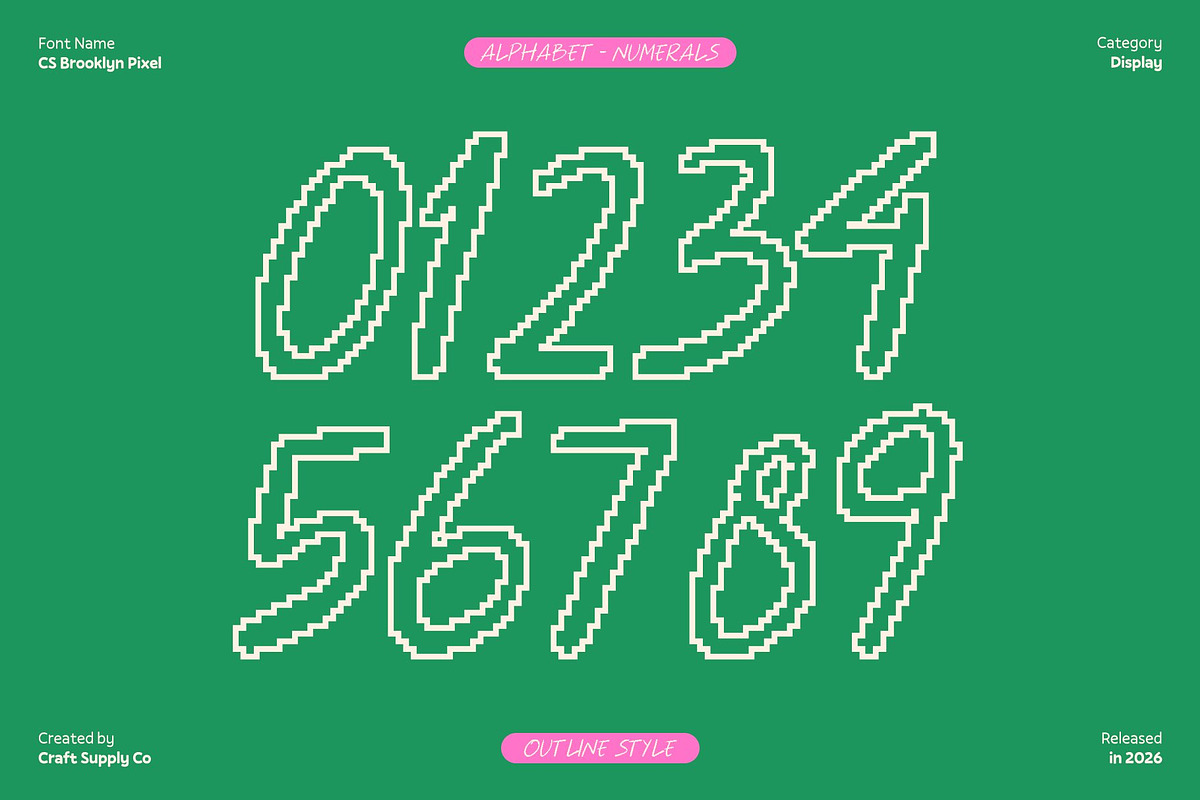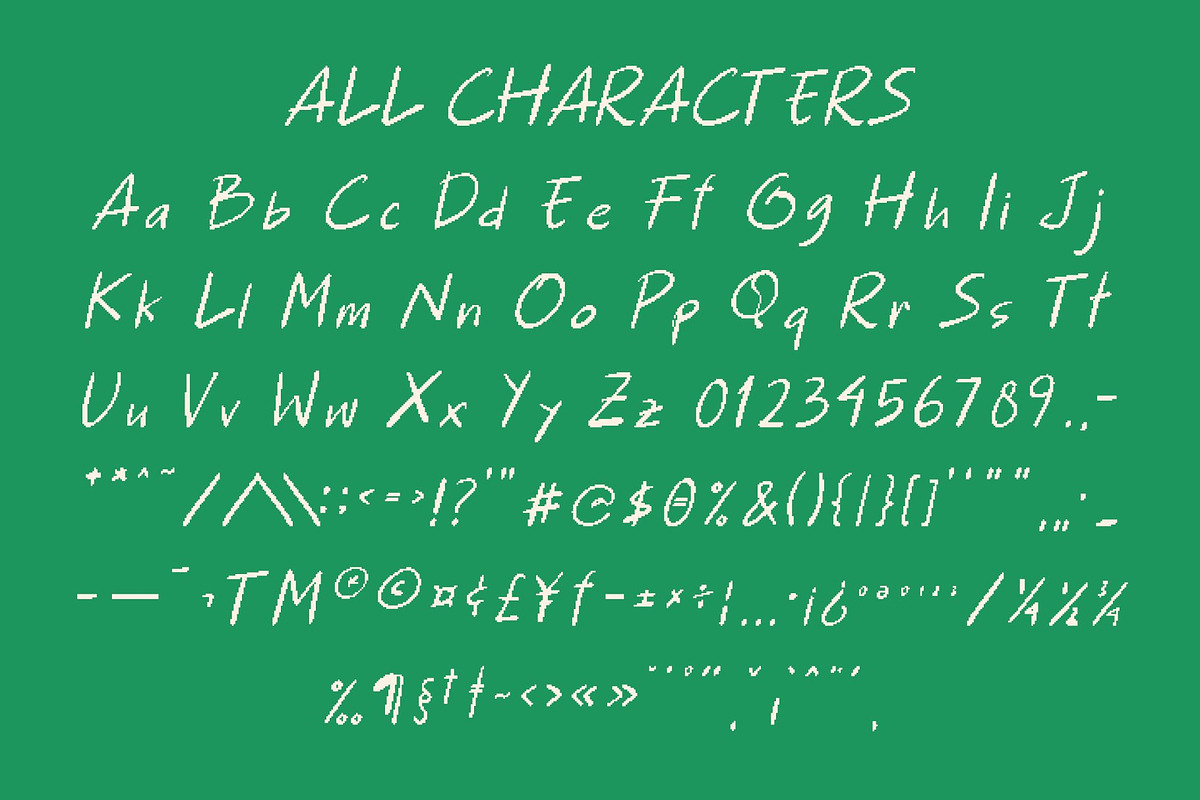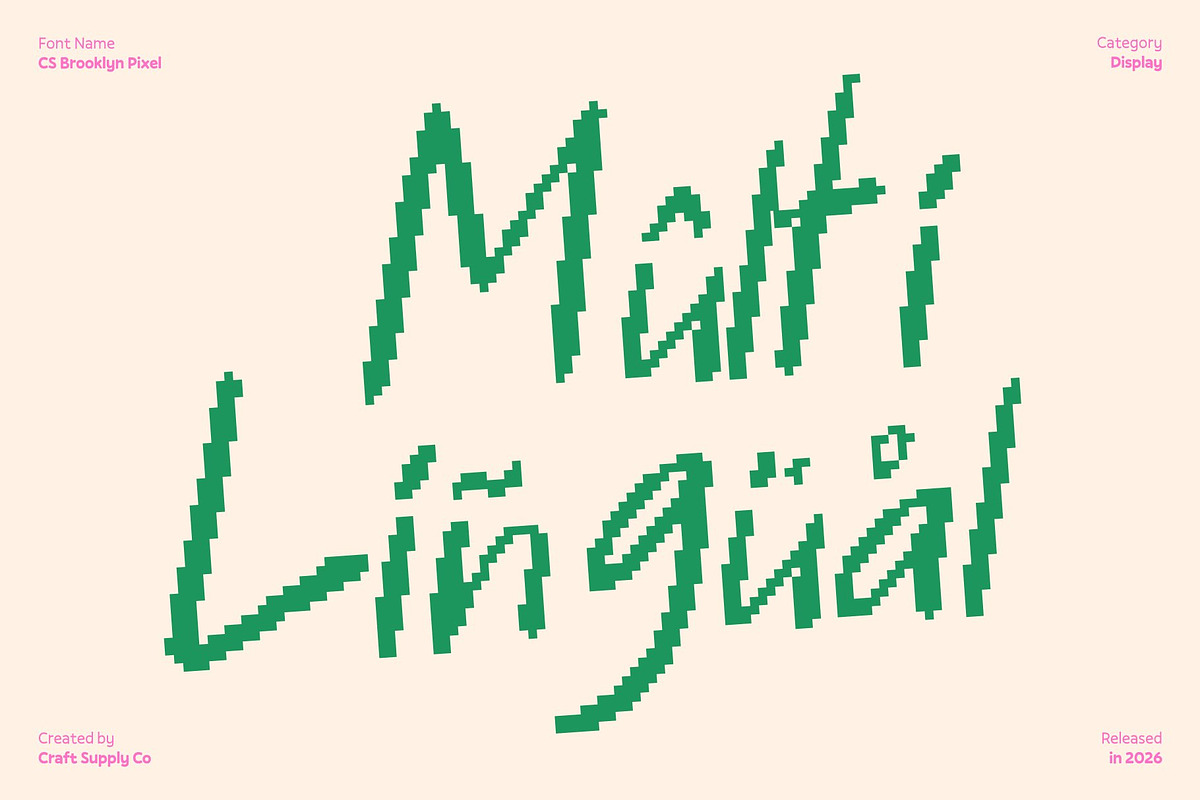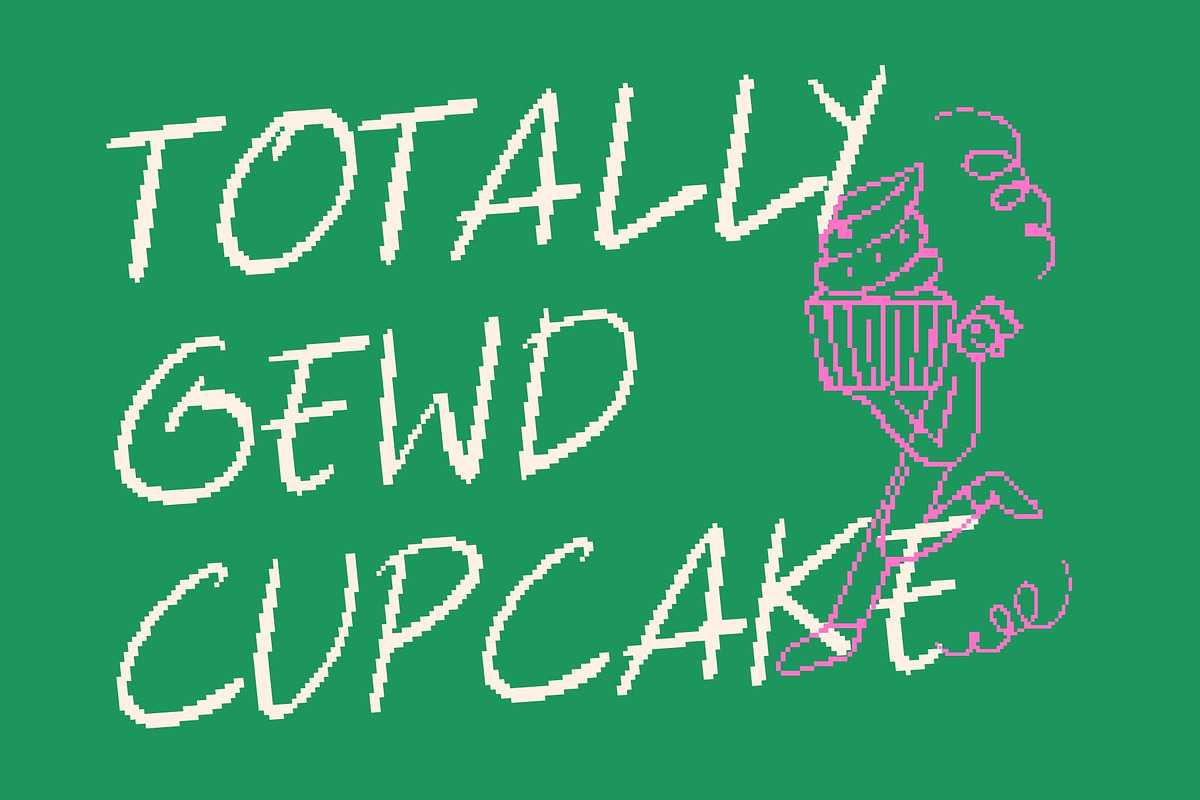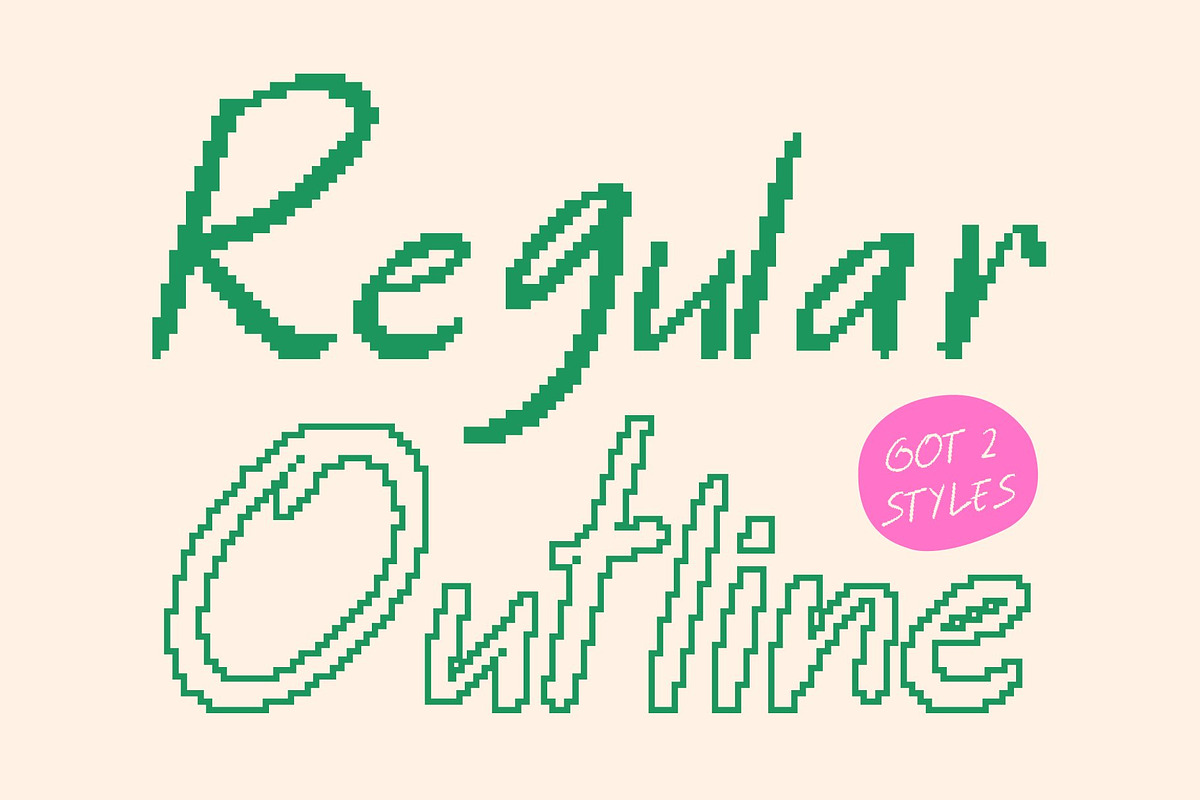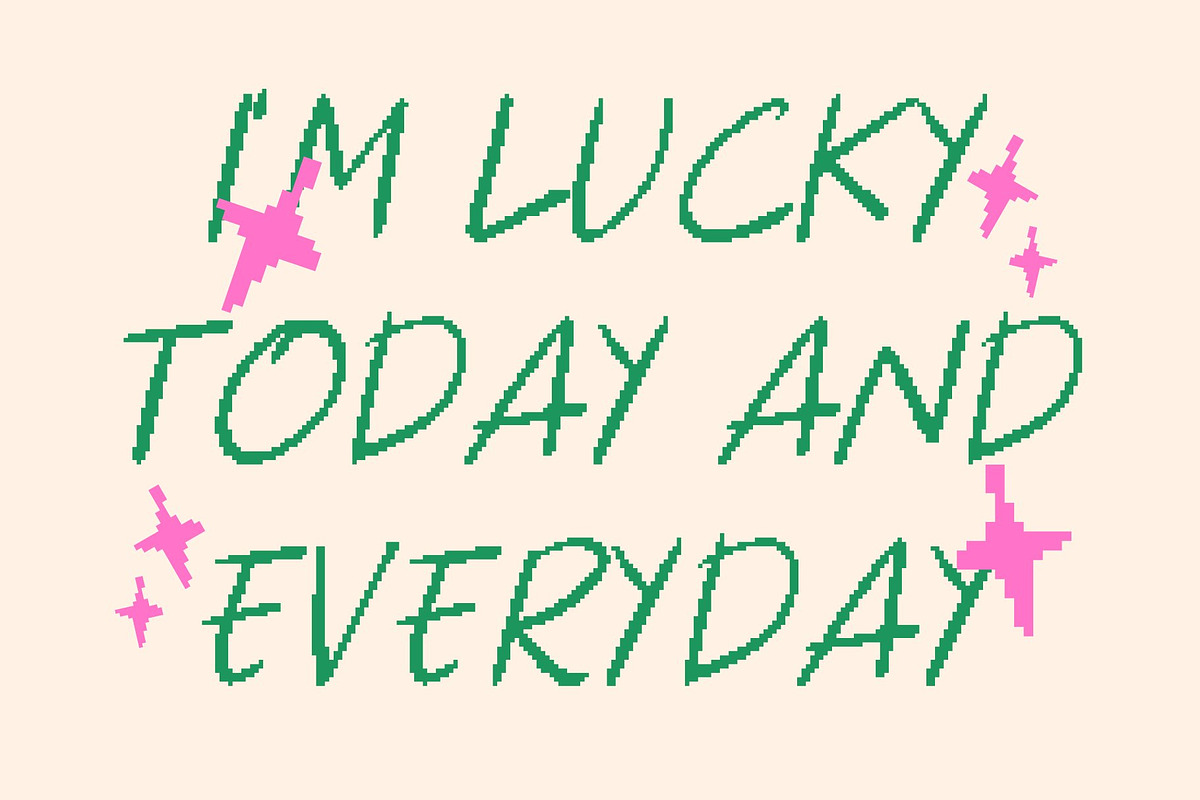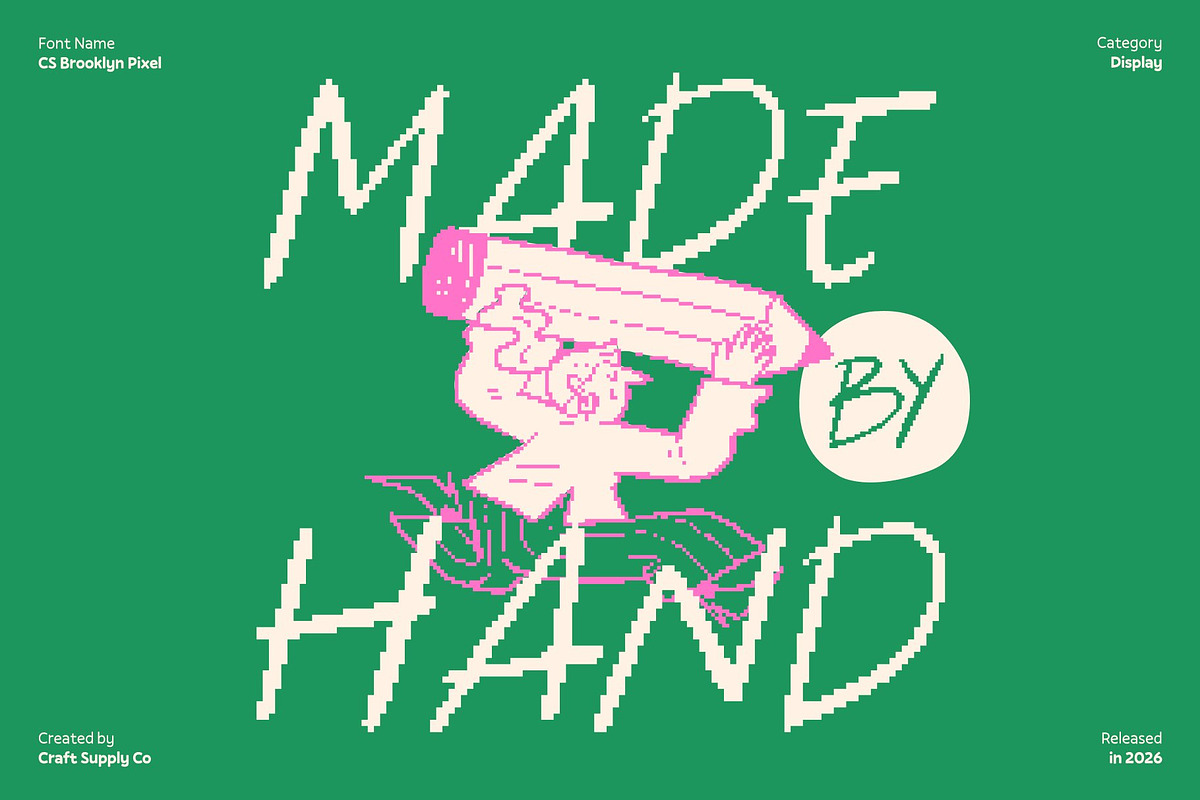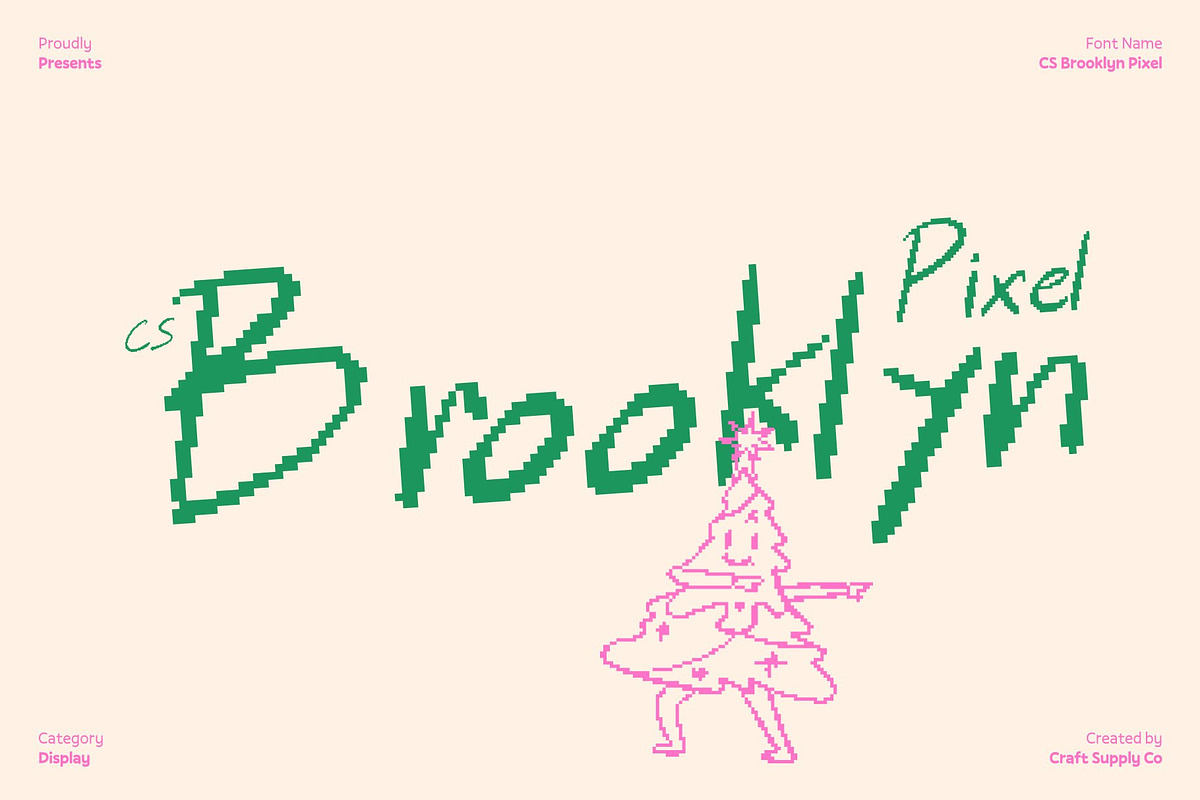
CS Brooklyn Pixel
CS Brooklyn Pixel – Modern Attitude with Digital Funk
Pixelated Handwritten Style with Funky Flair This transforms the carefree energy of a funky handwritten font into a pixel-perfect, digital-ready form. Its playful strokes and relaxed curves retain personality while embracing a sharp, tech-inspired edge, making it ideal for retro digital aesthetics, video games, or modern interface design.
Lively Rhythm Meets Modern Structure The font preserves the spontaneous flow of handwriting but adapts it into clean, pixel-aligned forms. This balance between quirky expressiveness and geometric precision creates a visually striking and readable typeface, perfect for headlines, banners, or digital media where style and clarity matter.
Trendy, Youthful, and Approachable With its casual charm and funky pixel detailing, this font conveys energy, creativity, and modern flair. It’s ideal for social media content, lifestyle branding, apparel graphics, or any project aiming to feel contemporary, fresh, and full of personality.
Perfect for Creative and Digital Projects From posters and logos to digital interfaces and video game typography, this font brings a vibrant, confident presence. This font combines youthful attitude with pixel-perfect precision, making every design bold, fun, and unmistakably modern.
- CS Brooklyn Pixel Regular
- CS Brooklyn Pixel Outline